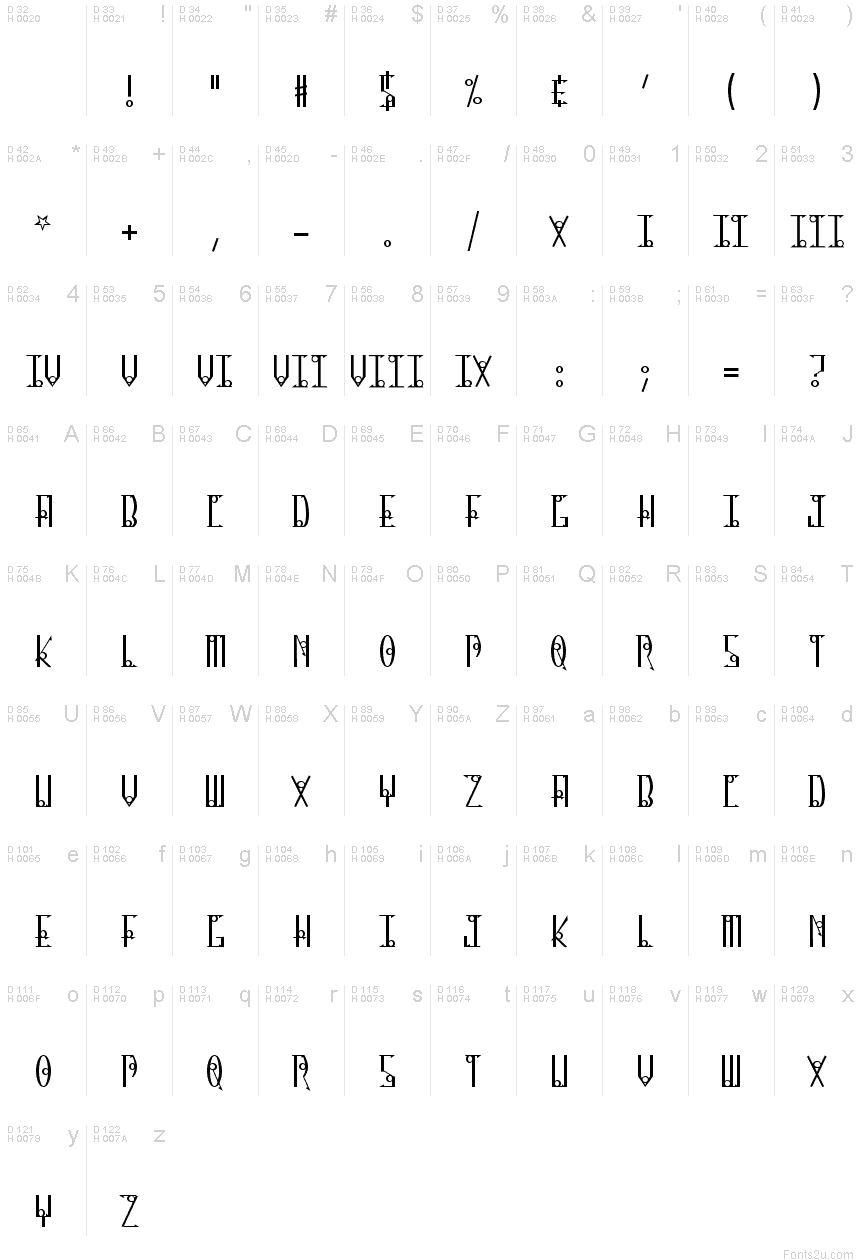
Thirteen O Clock
Thirteen O Clock font by Nate Piekos is a free decorative horror typeface with tall, wiry letters that look scratched straight out of a haunted clocktower. The stems feel like crooked iron bars, while the tiny curls and hooks drip with occult, storybook energy. It has a narrow, slightly uneasy rhythm that pulls the eye along like a flickering candle down a dark hallway.
Using Thirteen O Clock, your titles instantly pick up a gothic, ritualistic mood that works beautifully for horror book covers, Halloween posters, metal band logos, escape-room branding, tarot or occult zine titles, and spooky game menus. This free font thrives at large sizes where its thin lines and eerie ornaments can really breathe; pair it with a clean, understated sans serif for body copy so the lettering remains the star of the page.